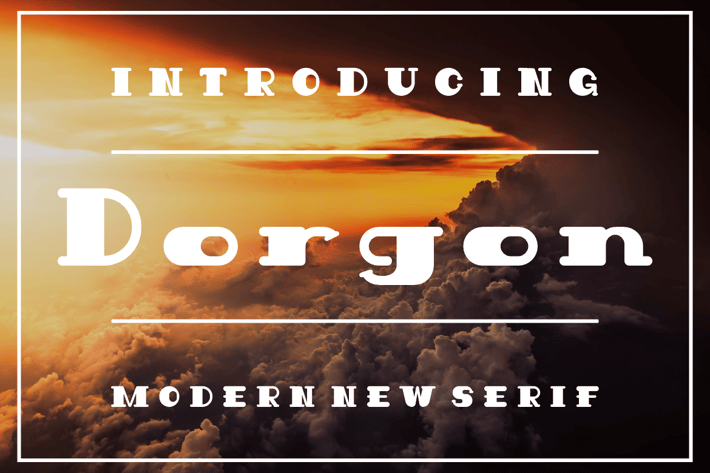
Dorgon Font
Introducing our new product Dorgon Font - Modern Font
Dorgon Font - Modern Font is a bold and authentic display font. The font is suitable for any branding project like logo, t-shirt printing, esport, and many more. outstanding in a wide range of contexts.